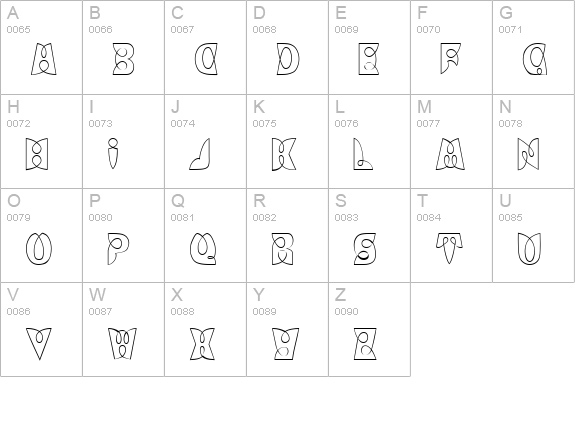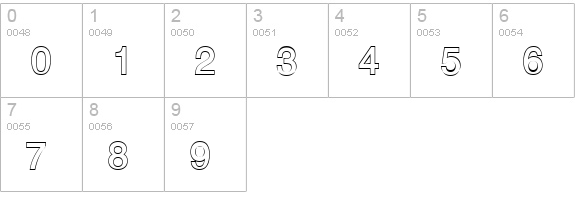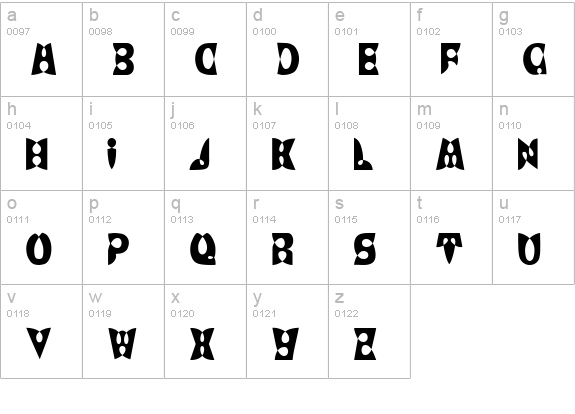
Papillon Font Details
Papillon font is an elegant and sophisticated typeface that exudes charm and grace. Its delicate curves and intricate details make it perfect for adding a touch of whimsy to your designs. With its playful yet refined style, Papillon font is sure to capture attention and elevate any project. What makes Papillon font even more appealing is that it is available for free download at FontsMarket.com. This means you can easily access this beautiful font to enhance your creative endeavors without any cost. Don't miss out on the opportunity to incorporate Papillon font into your projects and elevate them to new heights of beauty and sophistication.